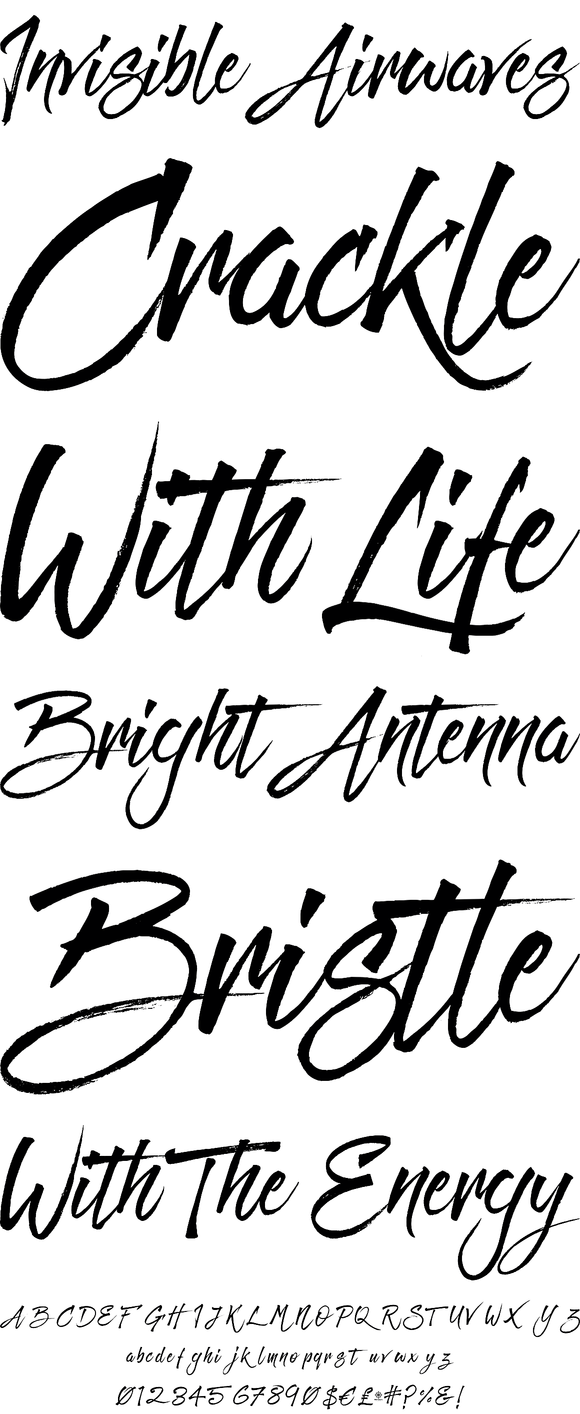
Fresh Fonts For 2021 - A Guide For Designers
Introducing Fresh Fonts
We all know that fonts play an important role in design. They can set the tone for a project and help create a unique visual identity. As such, it’s important for designers to stay up-to-date on the latest font trends. That’s why we’ve created this guide to the freshest fonts of 2021. Here, you’ll find a list of the latest and greatest typefaces, as well as tips on how to use them in your designs.
What Are Fresh Fonts?
Fresh fonts are typefaces that have recently been released or updated. They are typically modern and often incorporate new trends or styles. While some fresh fonts are created from scratch, others might be updates to existing typefaces. In either case, fresh fonts often have unique features such as stylistic alternates, ligatures, or swashes.
Best Fresh Fonts for 2021
There are many fresh fonts available for designers to use. Here are a few of our favorites:
1. Blossom:
Blossom is a modern serif font with a playful nature. It has a large x-height and a bold, confident feel. The font includes a variety of stylistic alternates, ligatures, and swashes. It’s perfect for creating headlines and logos with a unique and eye-catching flair.
2. Rion:
Rion is a sans-serif font with a geometric structure. It has a modern, minimal style that makes it perfect for logos and other branding materials. The font includes a variety of stylistic alternates, ligatures, and swashes.
3. Karmen:
Karmen is a modern script font with a retro vibe. It has an organic, brush-like feel that makes it perfect for logos, headlines, and other design projects. The font includes a variety of stylistic alternates, ligatures, and swashes.
4. Iceberg:
Iceberg is a modern slab serif font with a strong, confident feel. It’s perfect for creating headlines and logos with a unique and eye-catching flair. The font includes a variety of stylistic alternates, ligatures, and swashes.
Tips for Using Fresh Fonts
When using fresh fonts in your design projects, it’s important to keep the following tips in mind:
1. Consider the Context:
When selecting a font, consider the context in which it will be used. Different fonts can evoke different emotions, so make sure to choose one that fits the message you’re trying to convey.
2. Mix and Match:
When creating a design project, don’t be afraid to mix and match fonts. Combining different fonts can help create a unique and visually striking look. Just make sure to keep the fonts in the same family to ensure a cohesive look.
3. Embrace Variety:
Every font has its own unique features, so don’t be afraid to embrace them. Stylistic alternates, ligatures, and swashes can all help create a unique and eye-catching design.
Fresh fonts can help create a unique and eye-catching look for your design projects. By following the tips mentioned above, you can make sure to choose the right font for the job. We hope this guide has helped you find some of the freshest fonts of 2021. Happy designing!